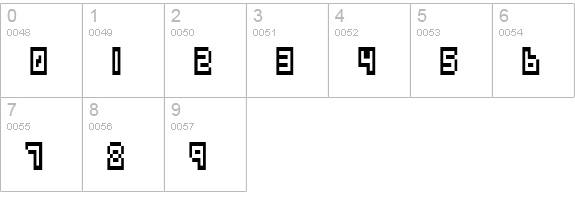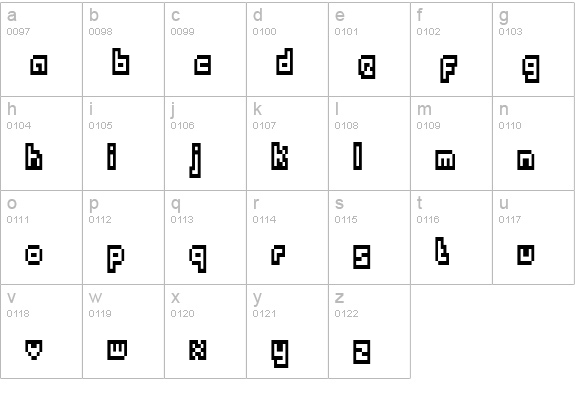
Outlands Truetype Font Details
Outlands Truetype font is a modern and stylish typeface that exudes a sense of adventure and exploration. Its bold and unique design makes it perfect for a wide range of creative projects, from branding to posters to social media graphics. The font features clean lines and sharp edges, giving it a sleek and contemporary look that is sure to grab attention. What sets Outlands Truetype font apart is that it is available for free download at FontsMarket.com. This means that you can use this versatile font in your designs without any cost, making it an excellent choice for both personal and commercial projects. Whether you're a designer looking to add a touch of sophistication to your work or a business owner in need of a fresh and eye-catching font for your marketing materials, Outlands Truetype font is sure to impress. Download it today and see the difference it can make in your designs!